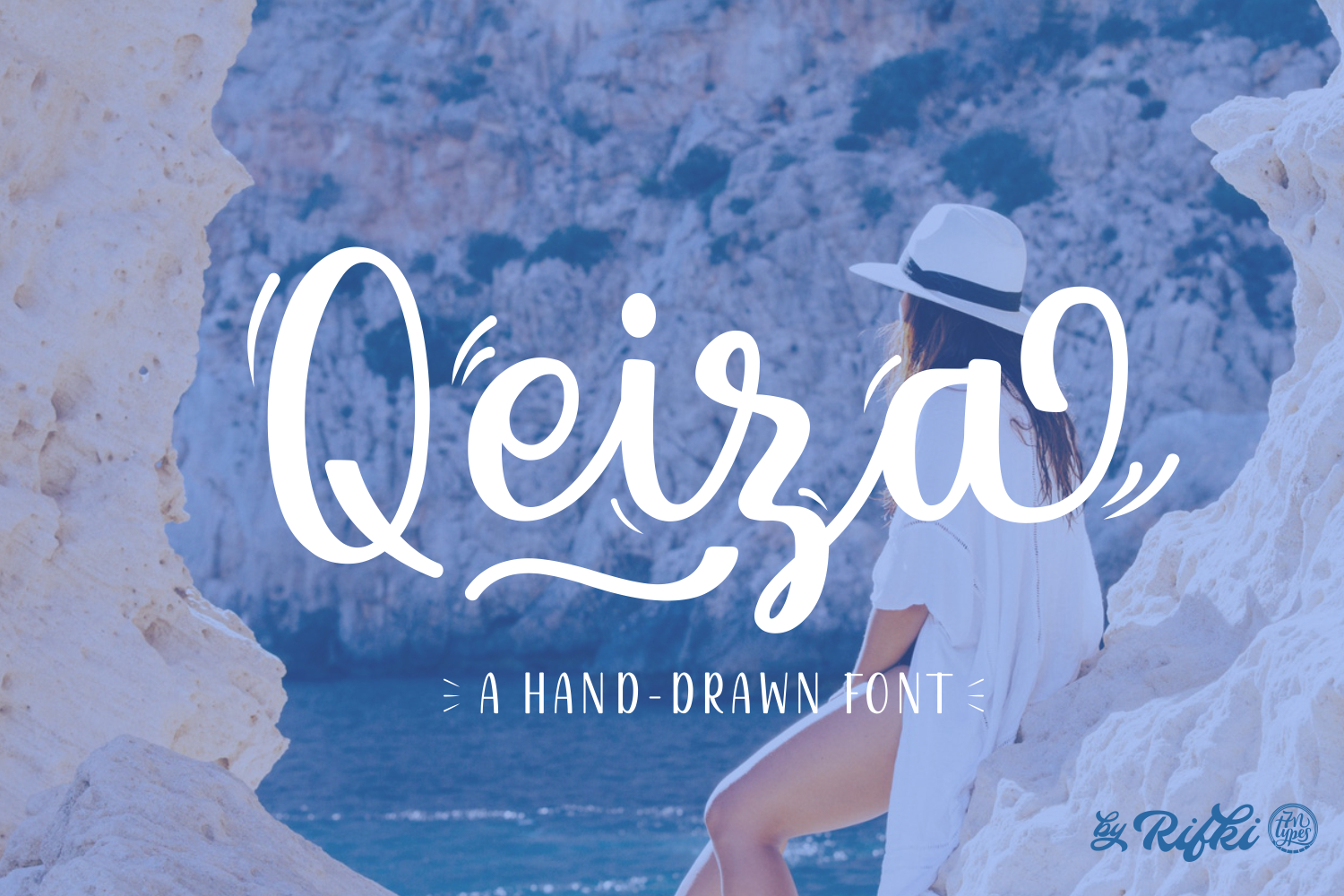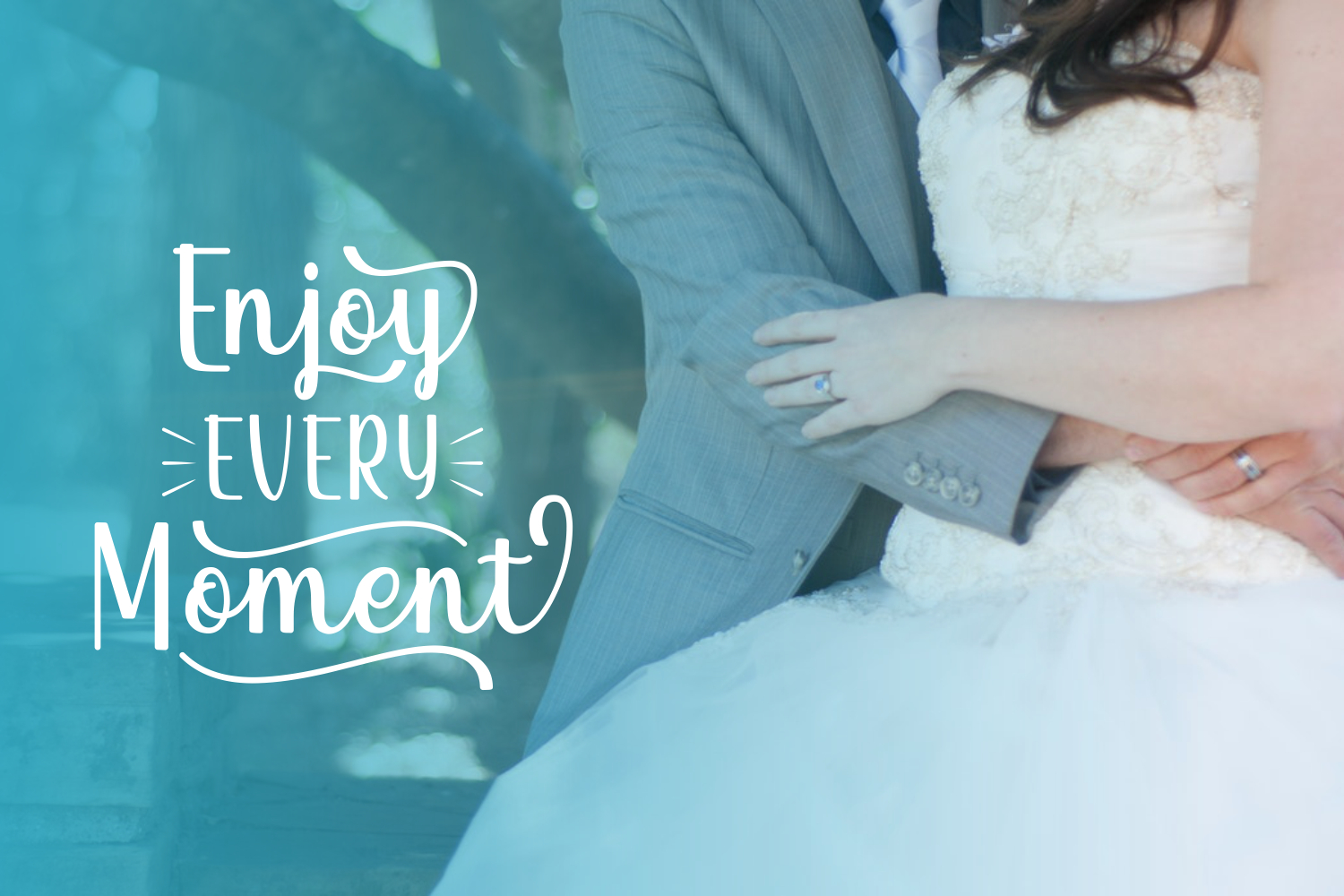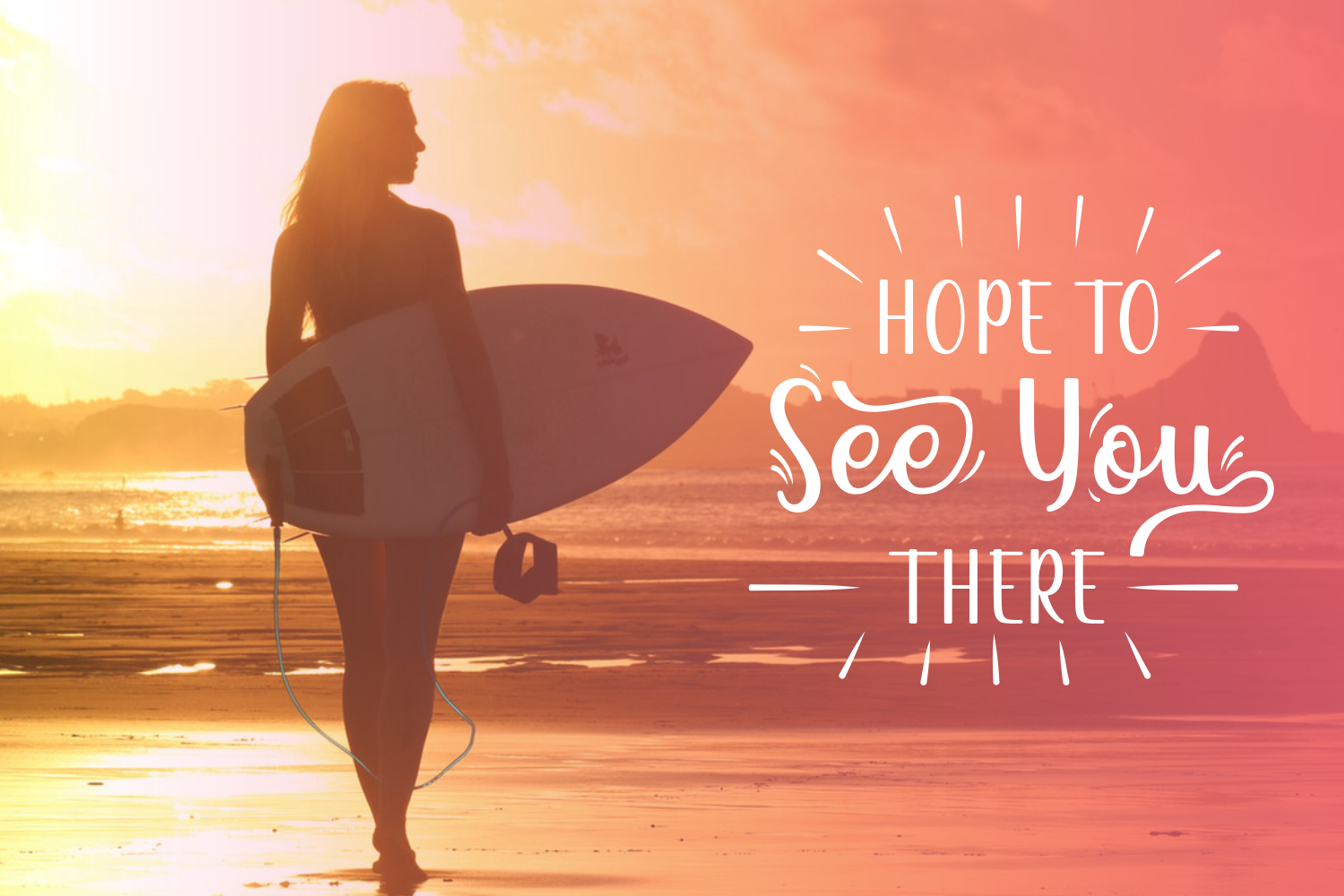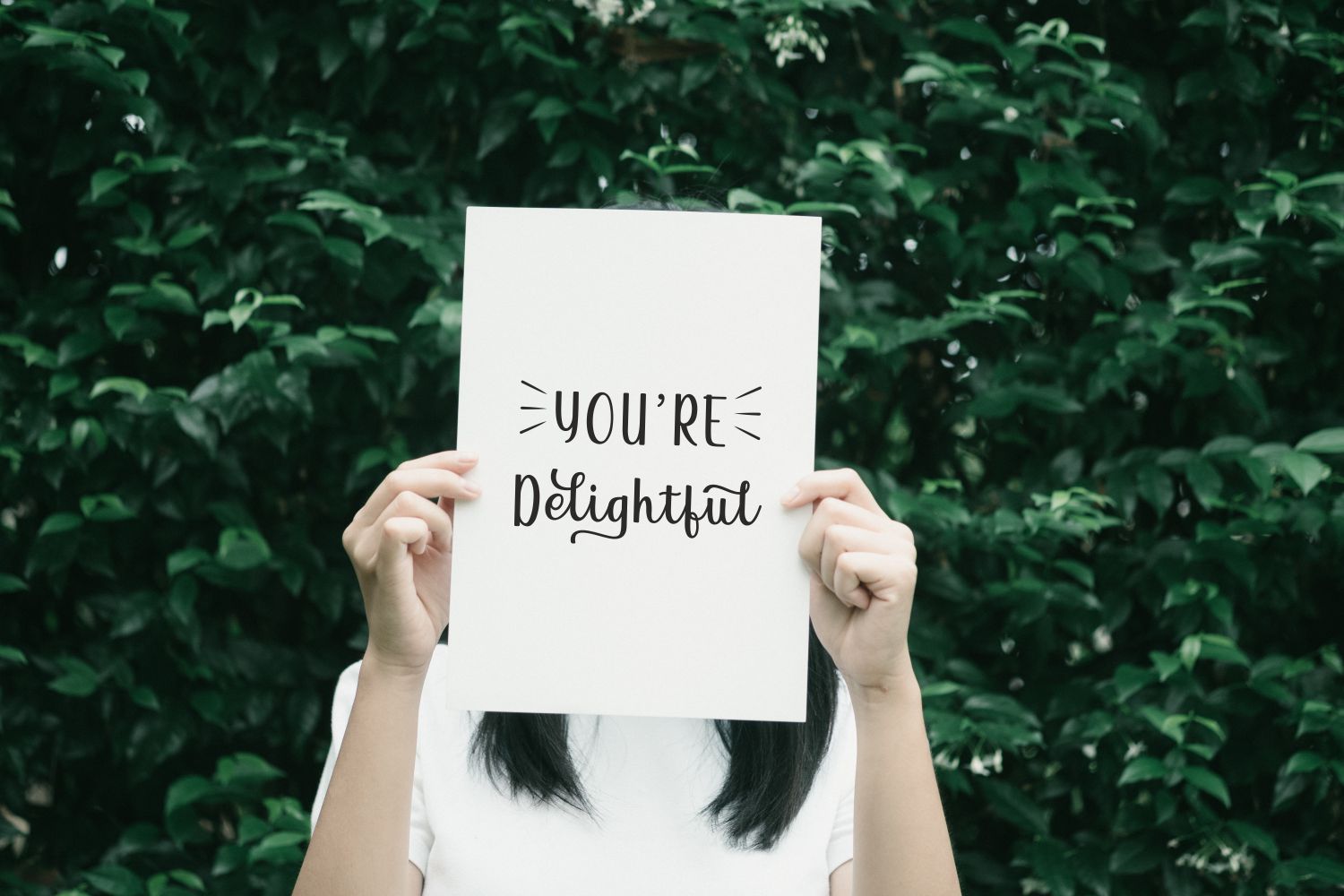
Qeiza Font
About Qeiza Font
Qeiza is a gorgeous script font, ideal for a wide range of designs and projects. This handwritten font is a great way to give your designs a homey and personable feel without compromising on style.